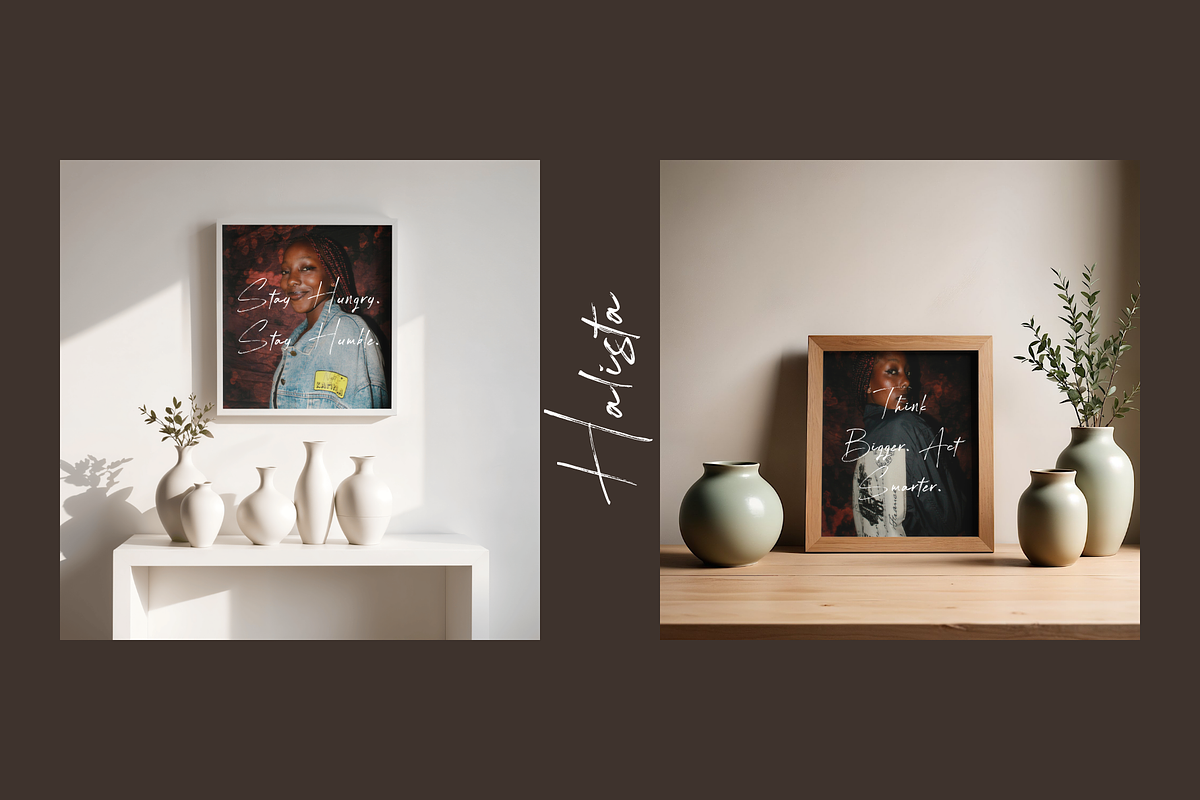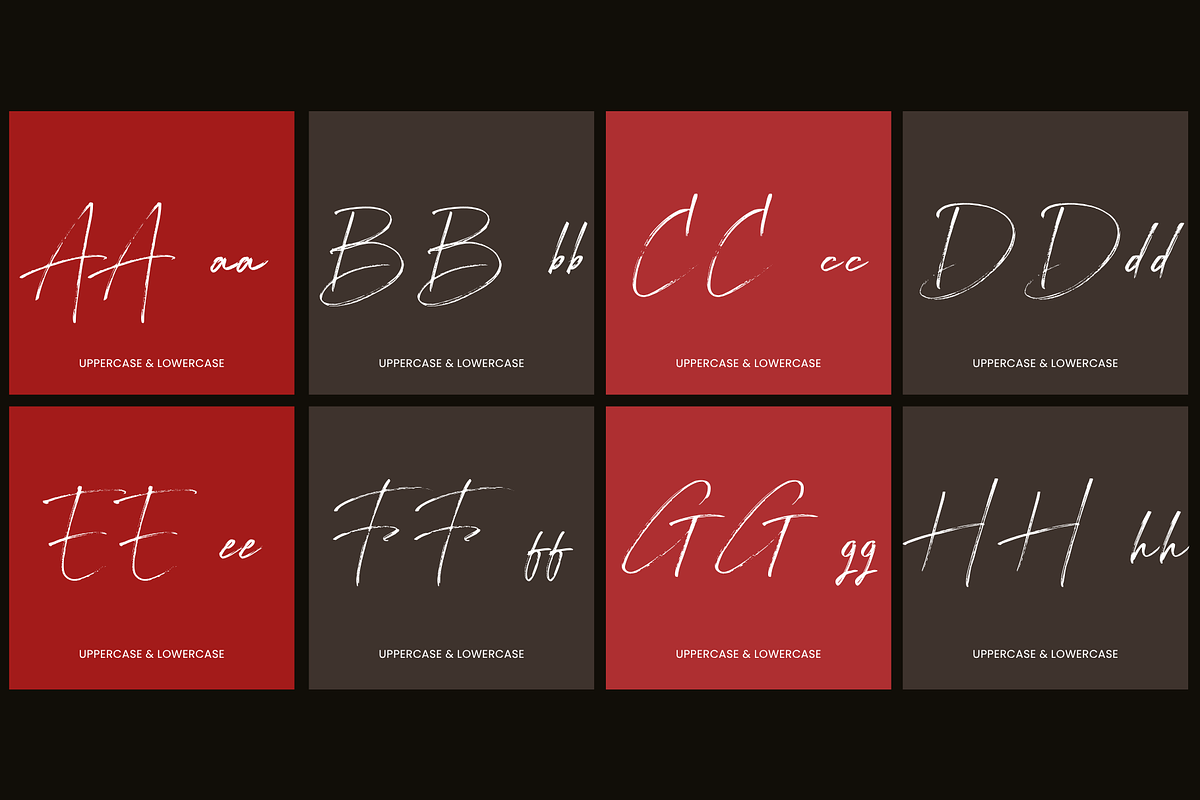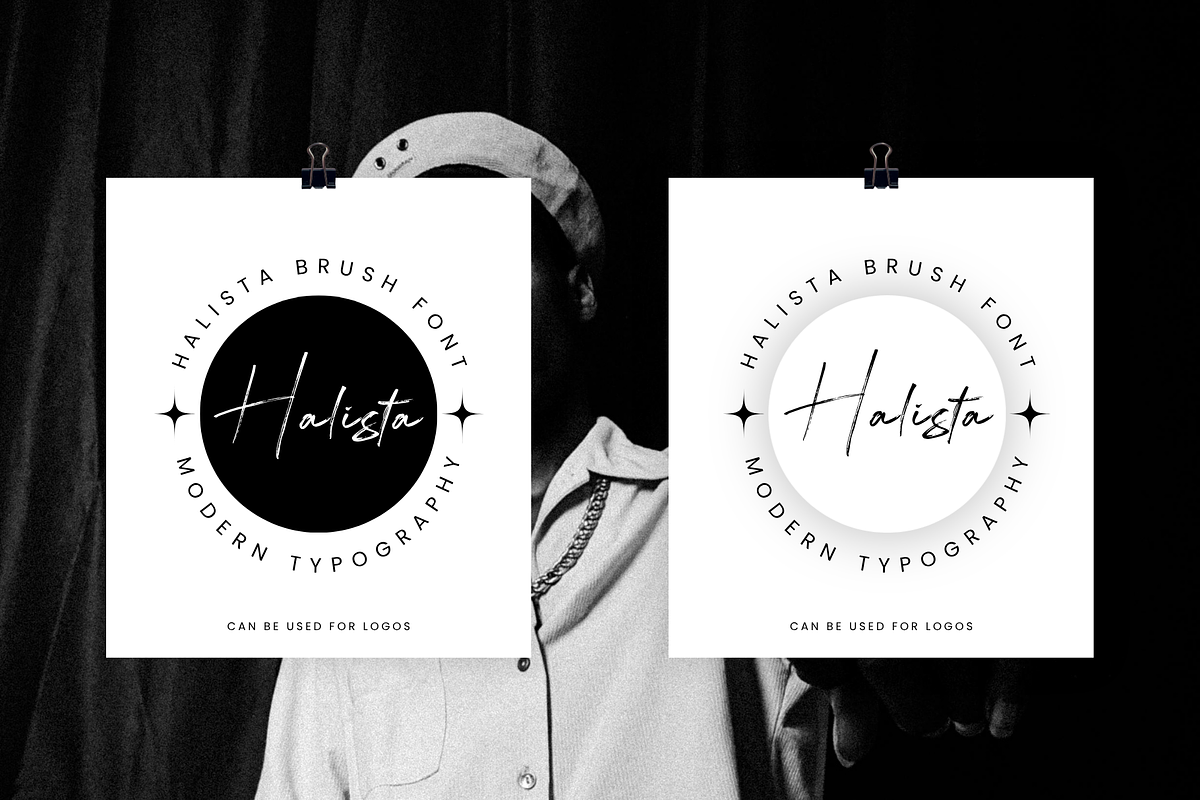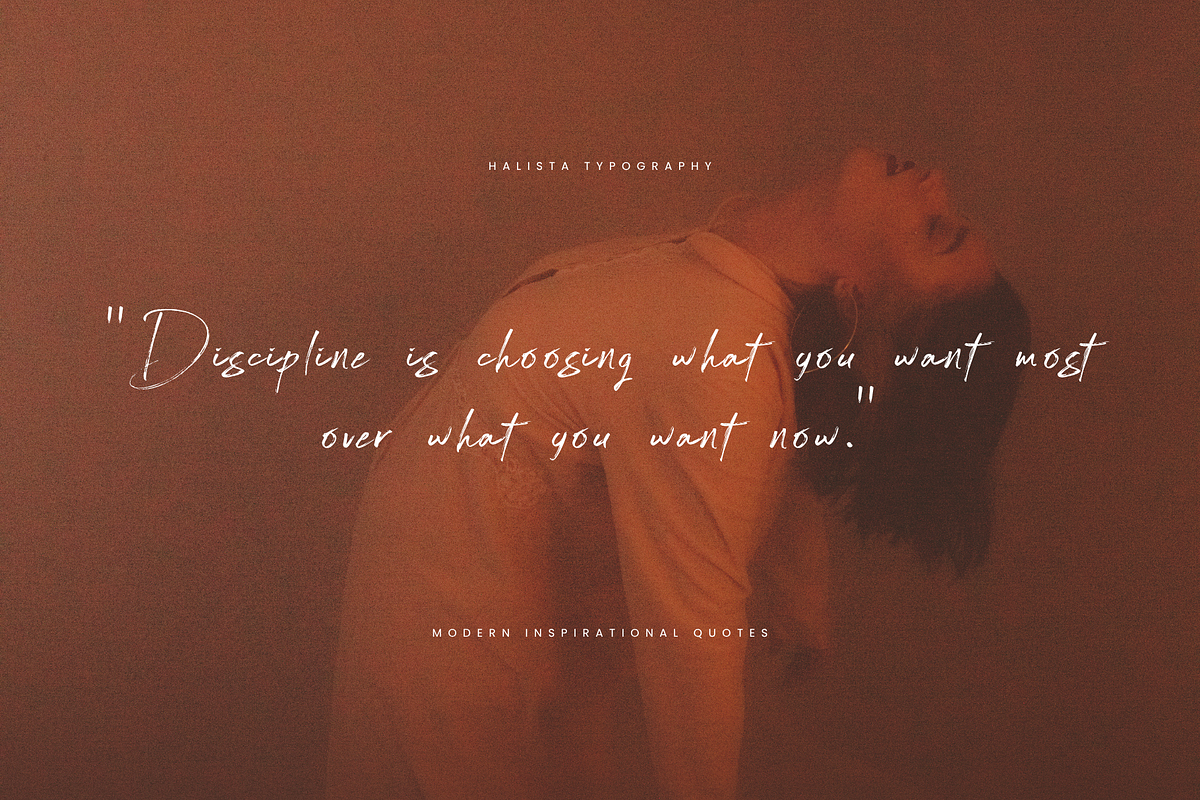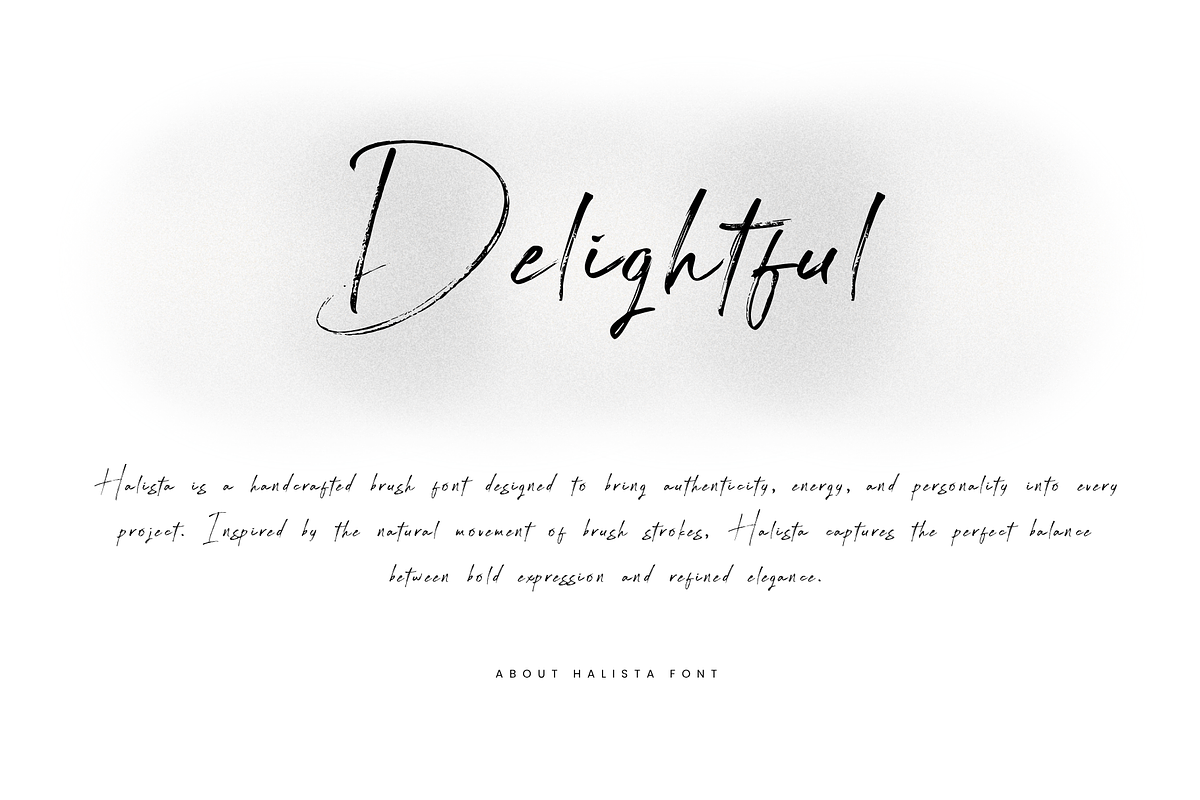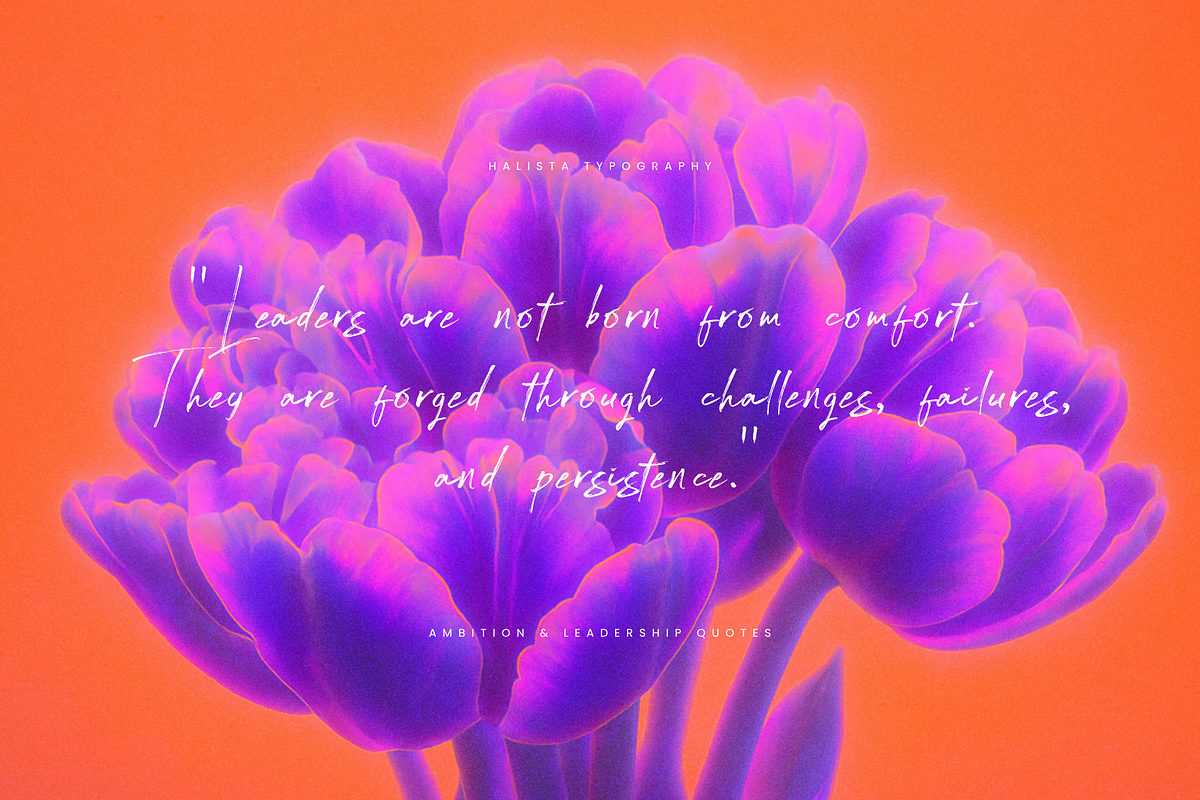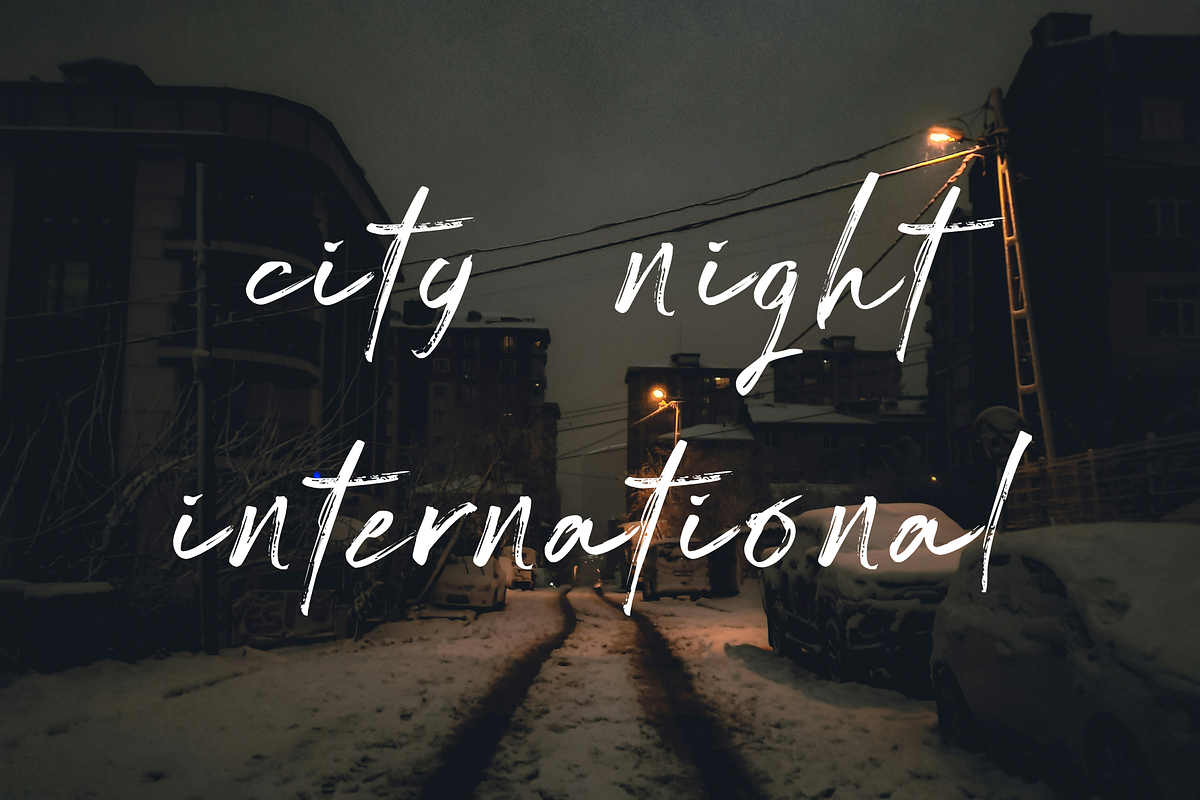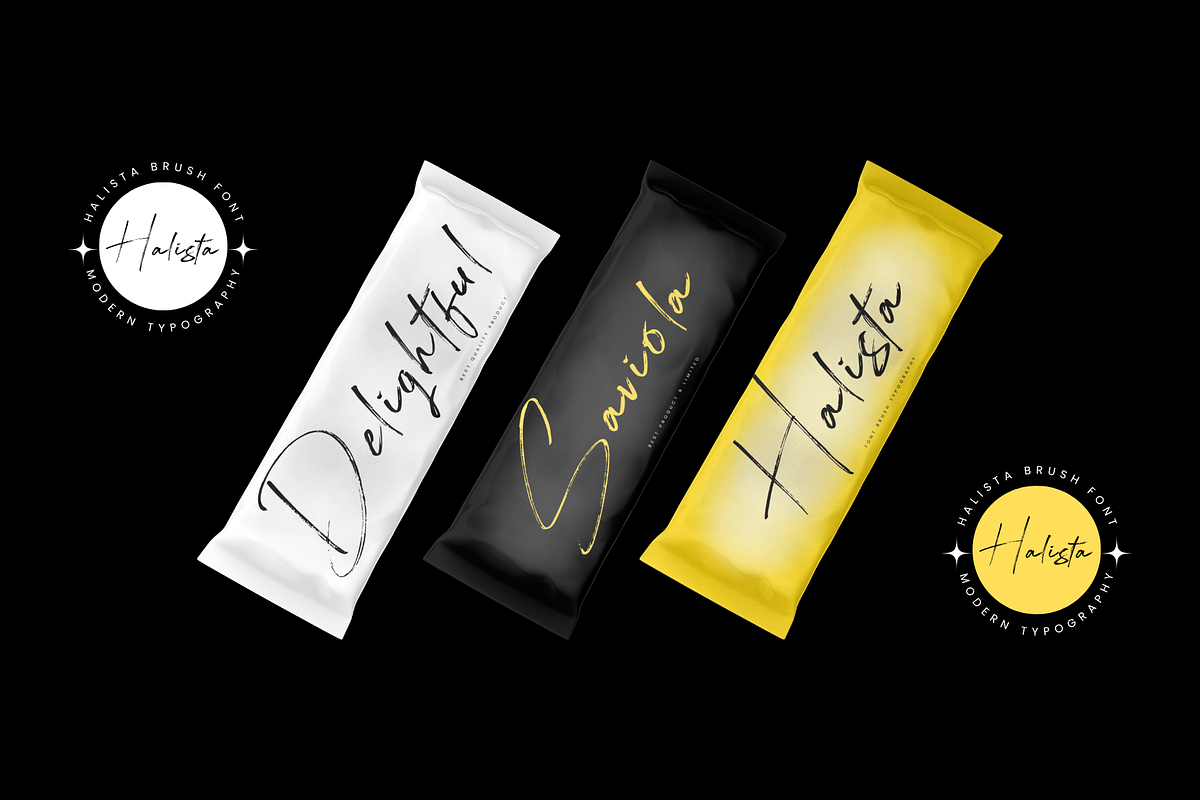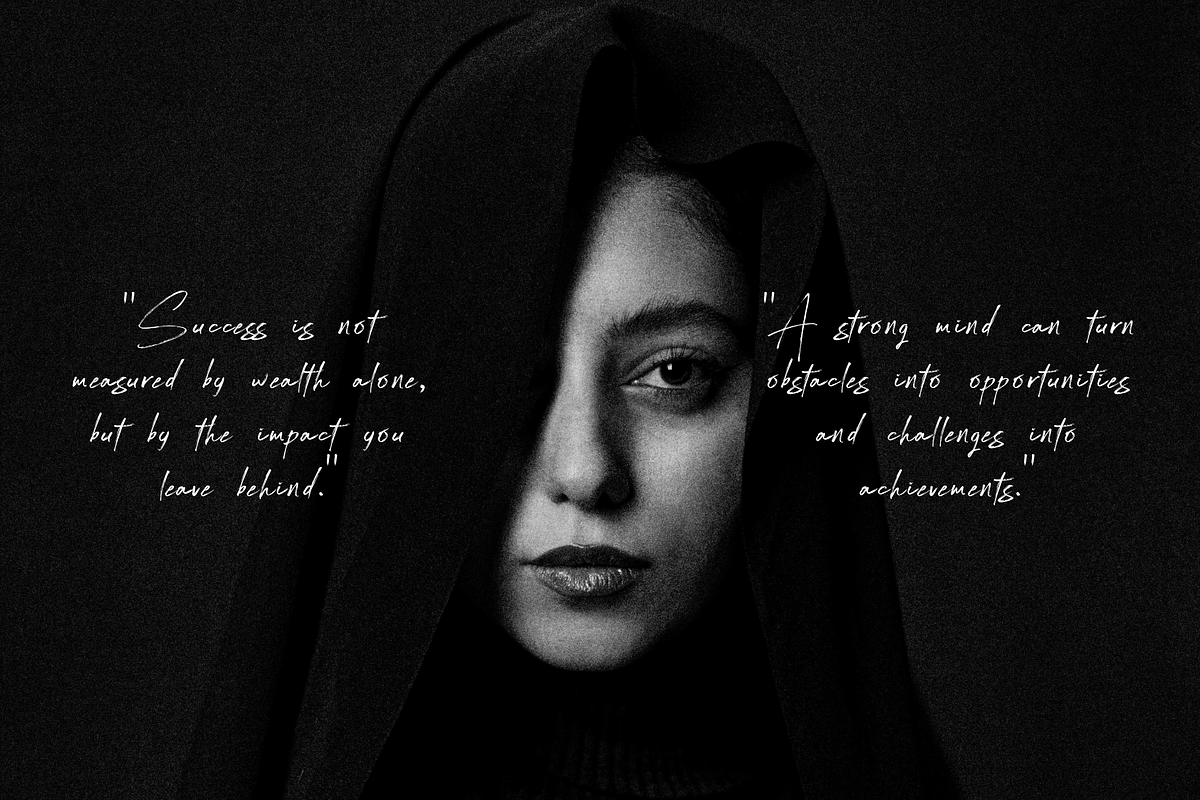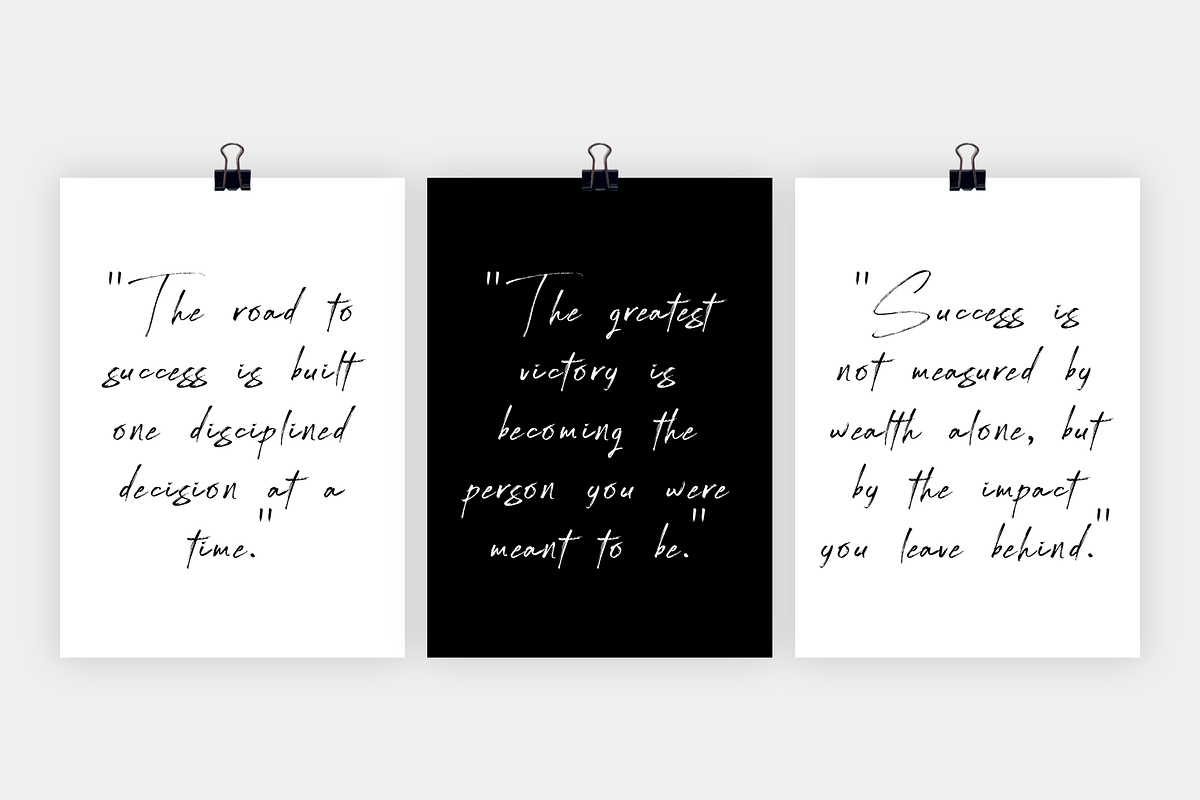
Halista
Introducing Halista, a casual and charming brush font with a natural flow and artistic touch. Designed to bring warmth and personality into your designs, Halista helps you create eye-catching lettering with ease.
Crafted by Gatype, this font blends a relaxed handwritten feel with stylish brush strokes, making it versatile for various creative projects. Whether you're aiming for something playful or expressive, Halista delivers a unique visual appeal.
Perfect for posters, banners, logos, book covers, headings, printed materials, merchandise, social media content, and much more. Explore different possibilities and see how Halista enhances your design through its preview.
Beautiful Swashes